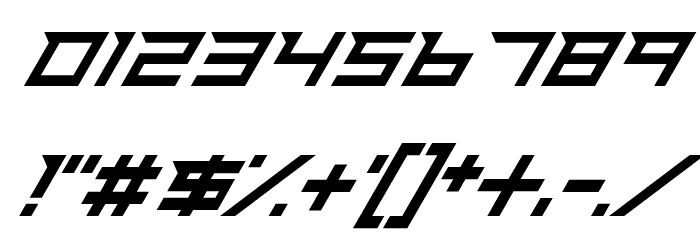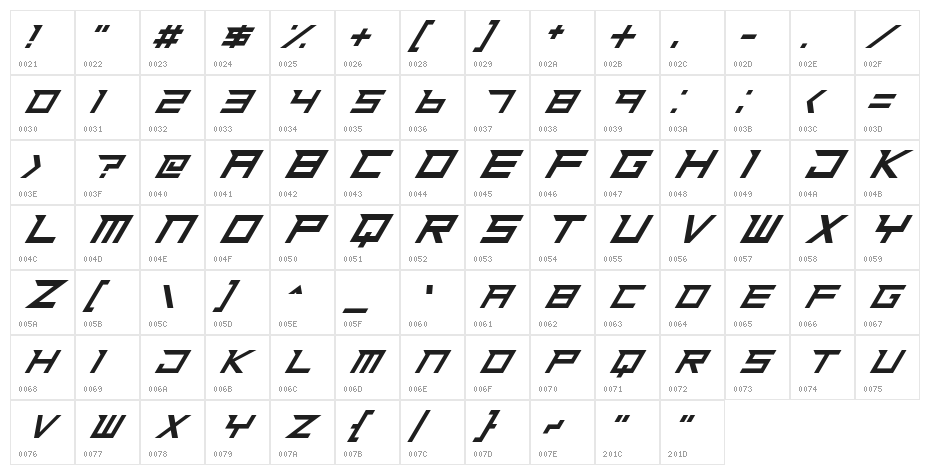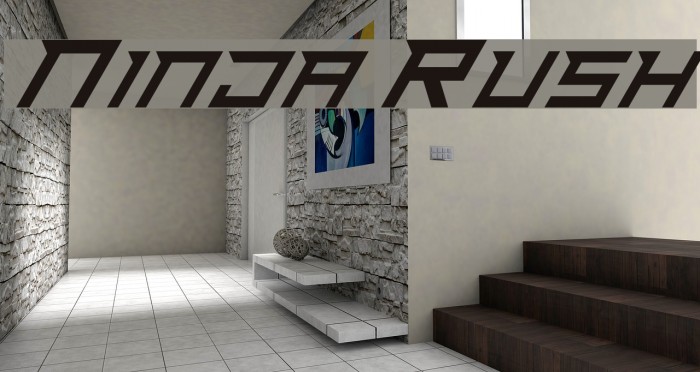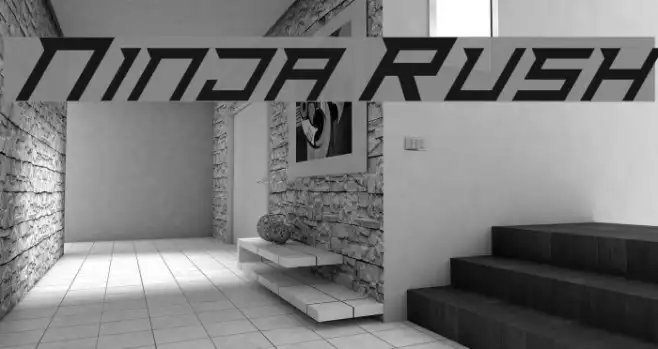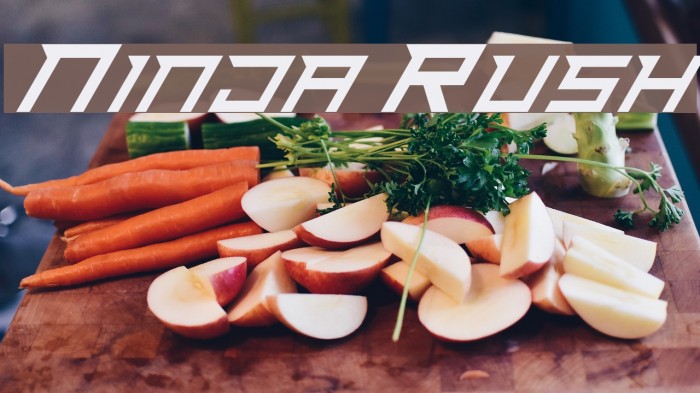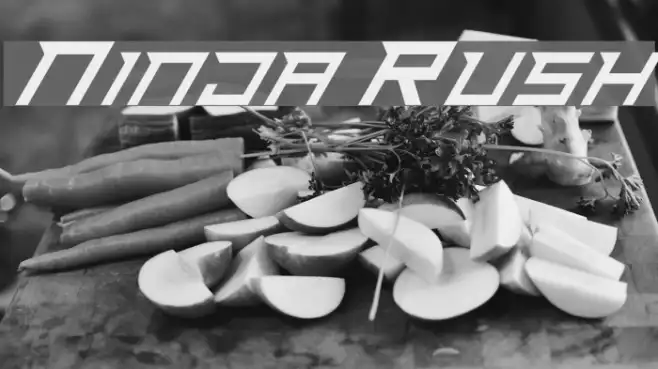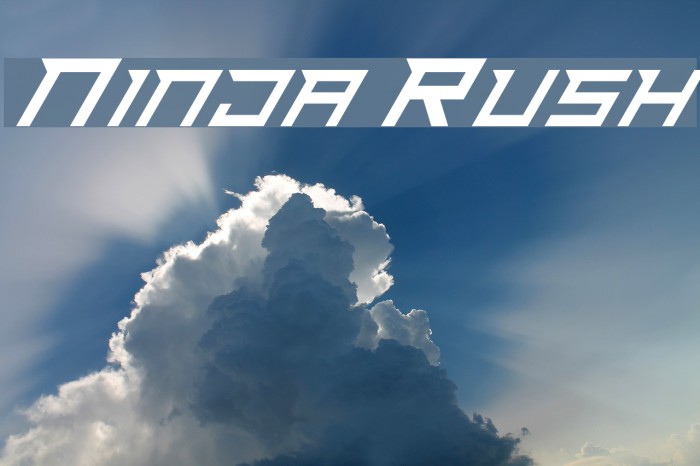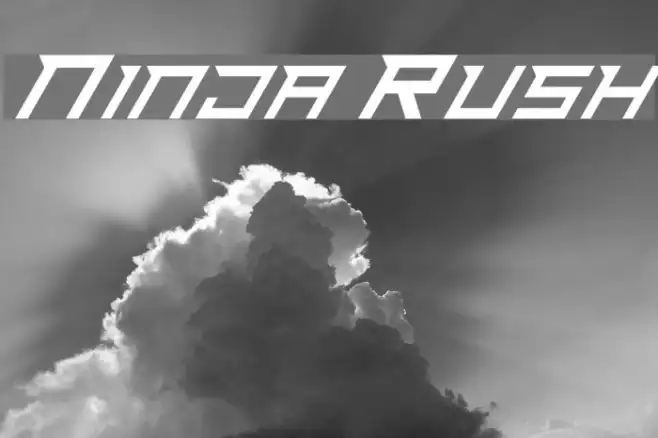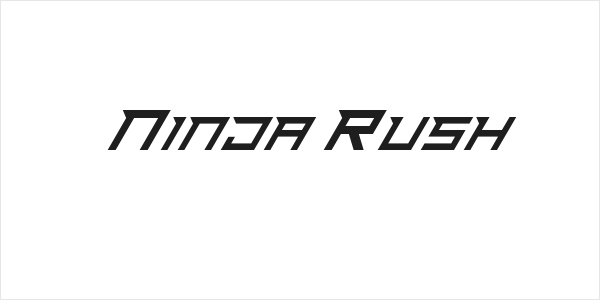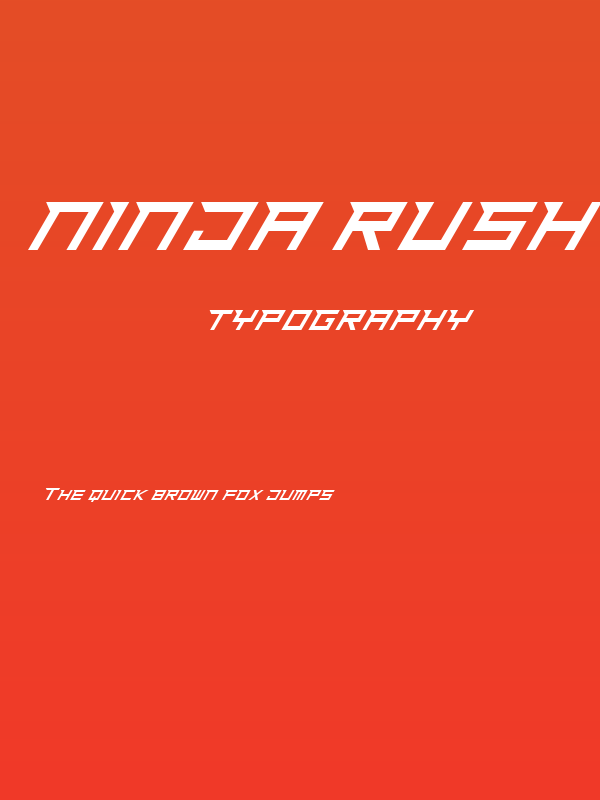
Ninja Rush Font
Ninja Rush Description
This font features a dynamic and angular design, characterized by sharp edges and a forward-leaning stance that suggests speed and motion. The uppercase letters are bold and geometric, with a futuristic aesthetic that is both striking and modern. The lowercase letters maintain the same angular style, providing consistency across the typeface. Numbers and special characters are designed with the same attention to detail, ensuring a cohesive look. The overall appearance is sleek and aggressive, making it ideal for projects that require a sense of urgency or technological advancement.
| Proposed Projects | Ideal for video game titles, tech branding, sports team logos, and action movie posters. |